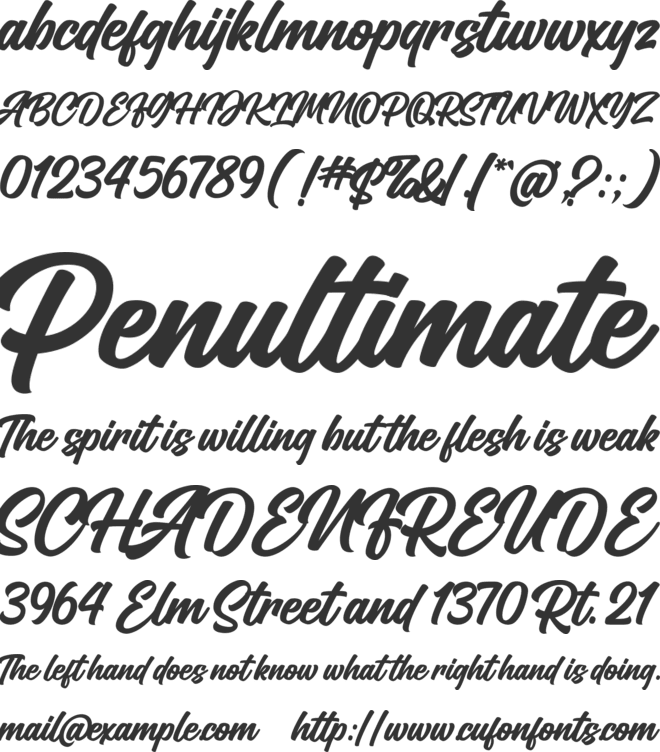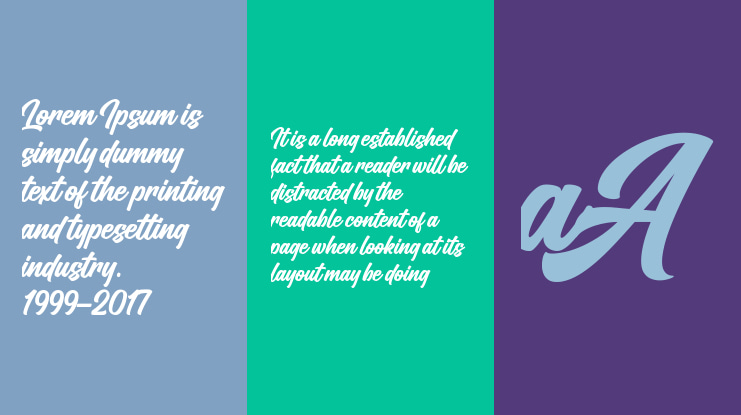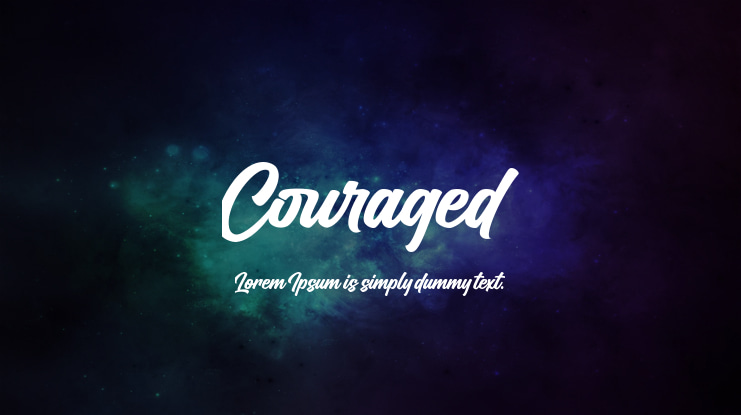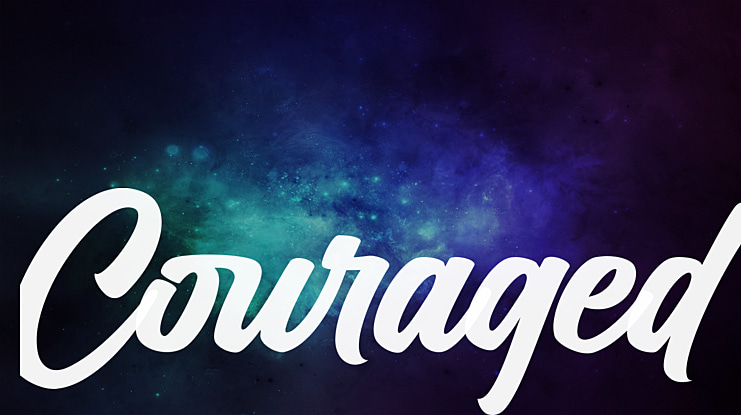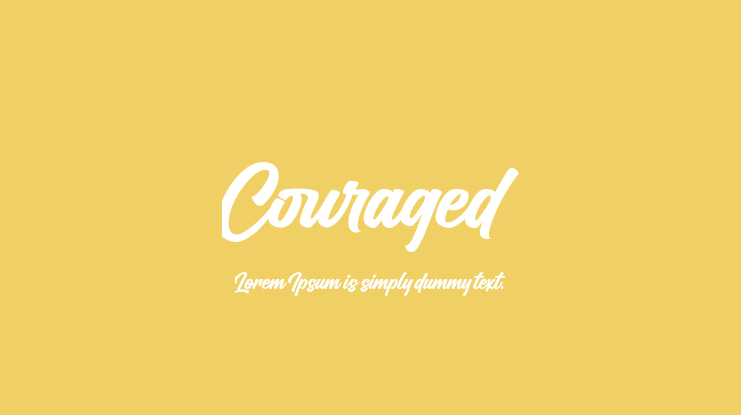
Couraged Font
Couraged is bold modern script typeface inspired by natural hand lettering style. Perfect for designing logotype, branding, promotional ads, quotes design, packaging, t-shirt design, poster, merchandise, social media and much more.